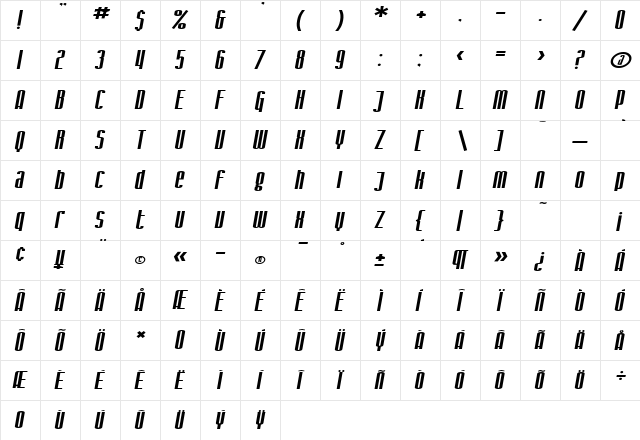
SF Iron Gothic Extended Oblique
Design Context for SF Iron Gothic Extended Typeface
SF Iron Gothic Extended takes a clean, functional approach — its unadorned letterforms prioritise legibility and work reliably across screen and print environments. The slanted form adds forward momentum and visual energy.
Font Pairing: Works well alongside a characterful serif or display font that can carry the expressive load while SF Iron Gothic Extended handles the functional copy.
Pro Tip: Pair SF Iron Gothic Extended with a display or serif font for headlines — its neutral character makes it an excellent supporting player in complex typographic systems.